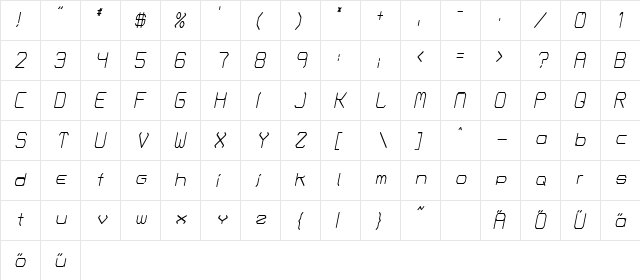
Fontmaker's Choice ThinItalic
Design Context for Fontmaker's Choice Typeface
Fontmaker's Choice is a composed and adaptable typeface that performs quietly and consistently across a wide range of design contexts. Its italic angle brings a sense of urgency and motion to the letterforms. Its slender proportions lend an understated elegance to any composition.
Pro Tip: Try Fontmaker's Choice for annotation and caption copy alongside an upright companion — the contrast in angle creates a dynamic but ordered typographic system.